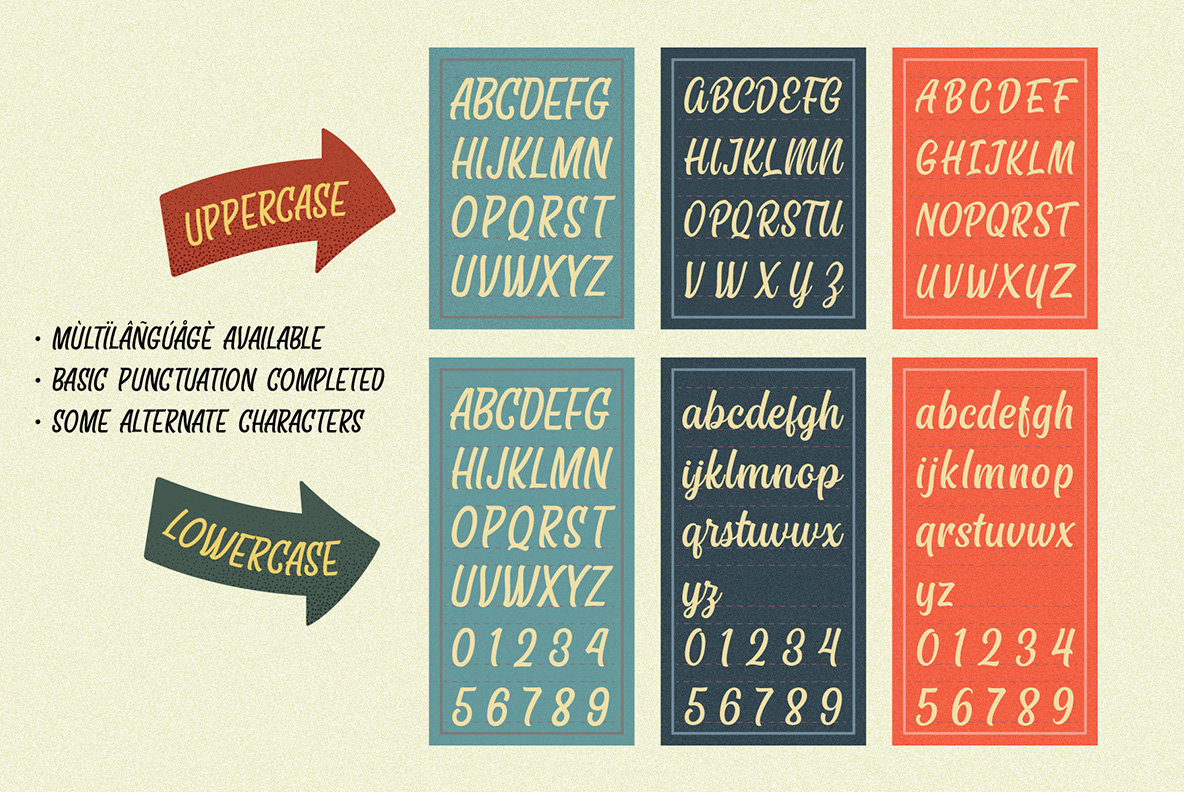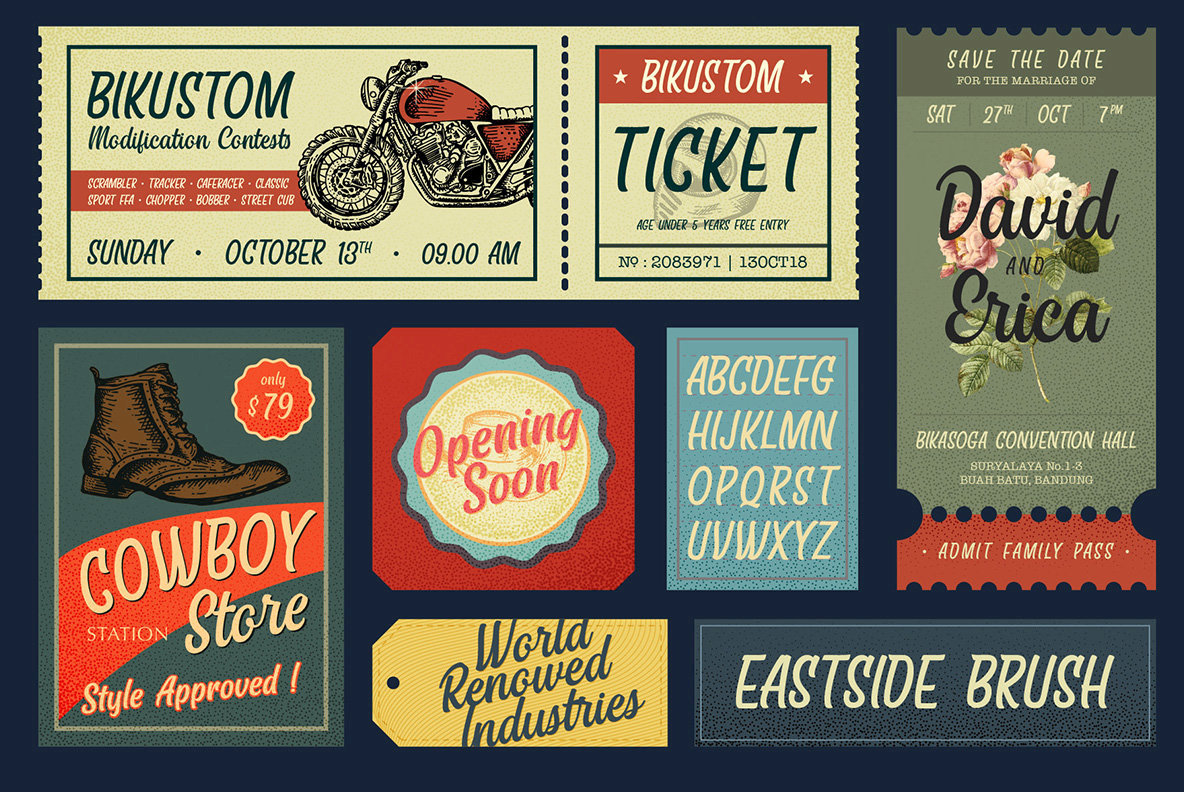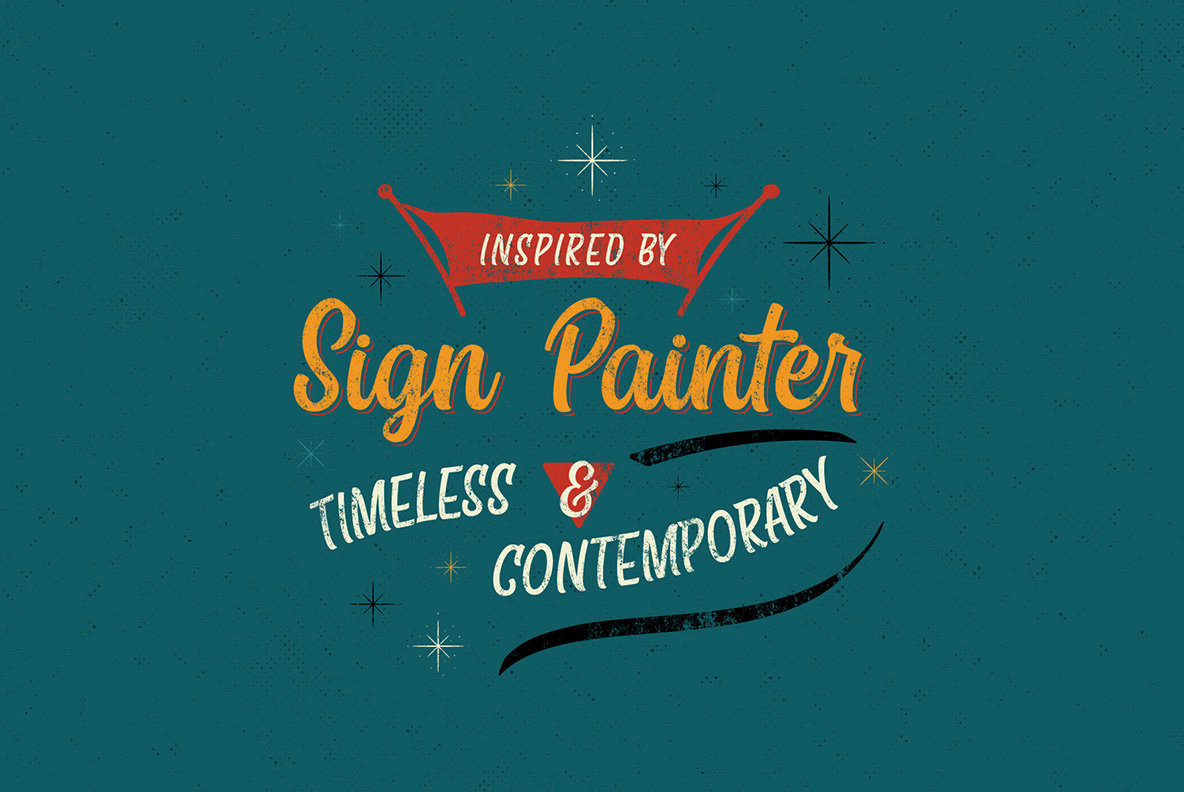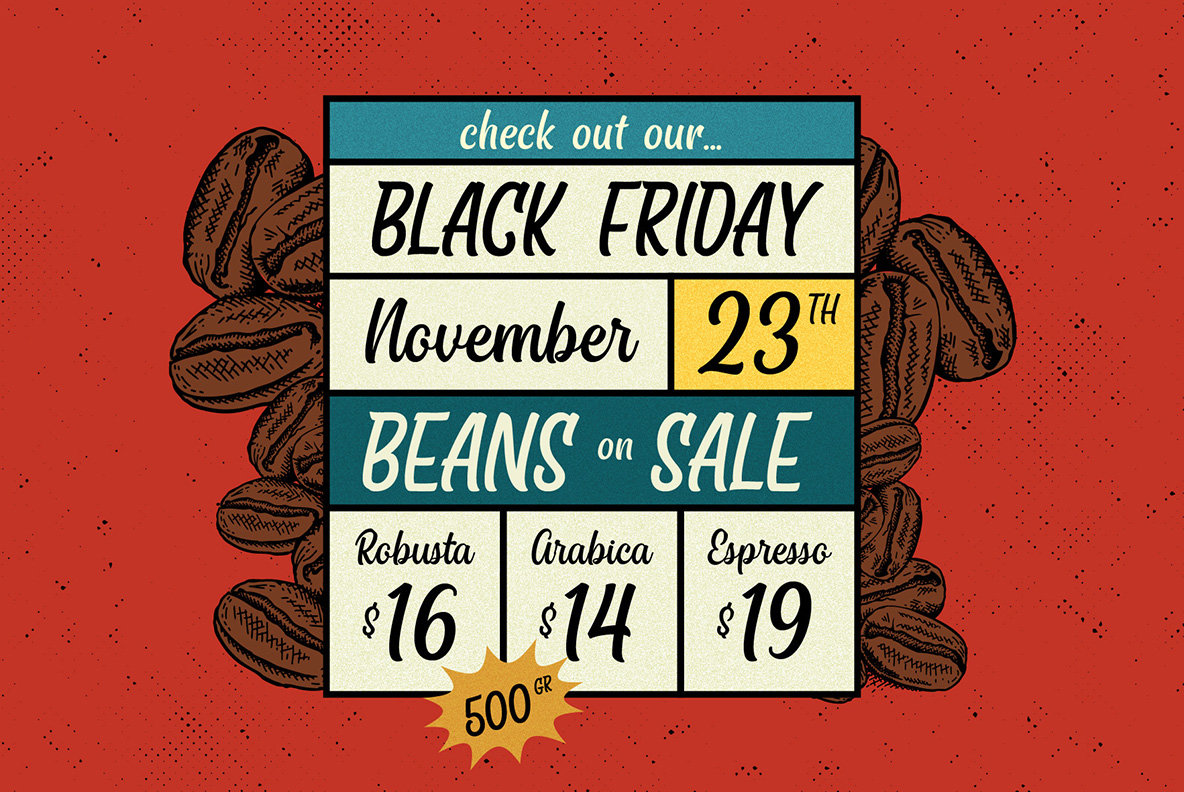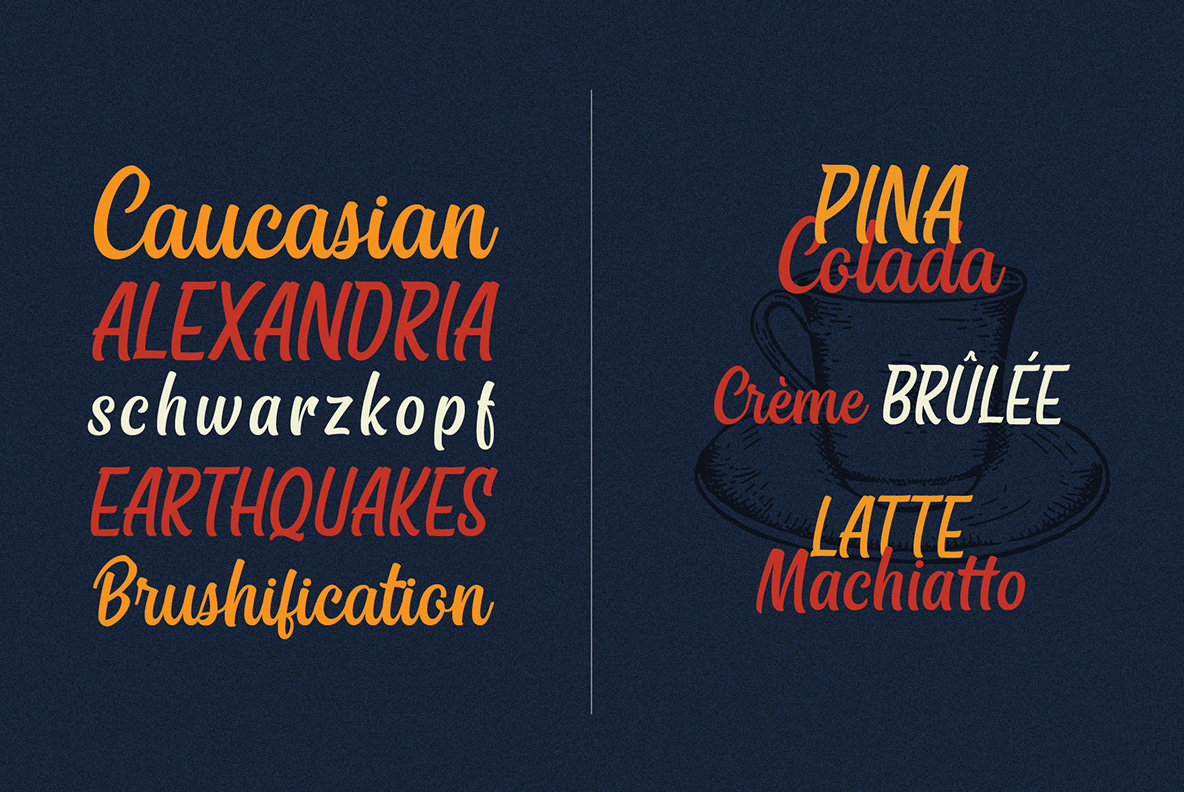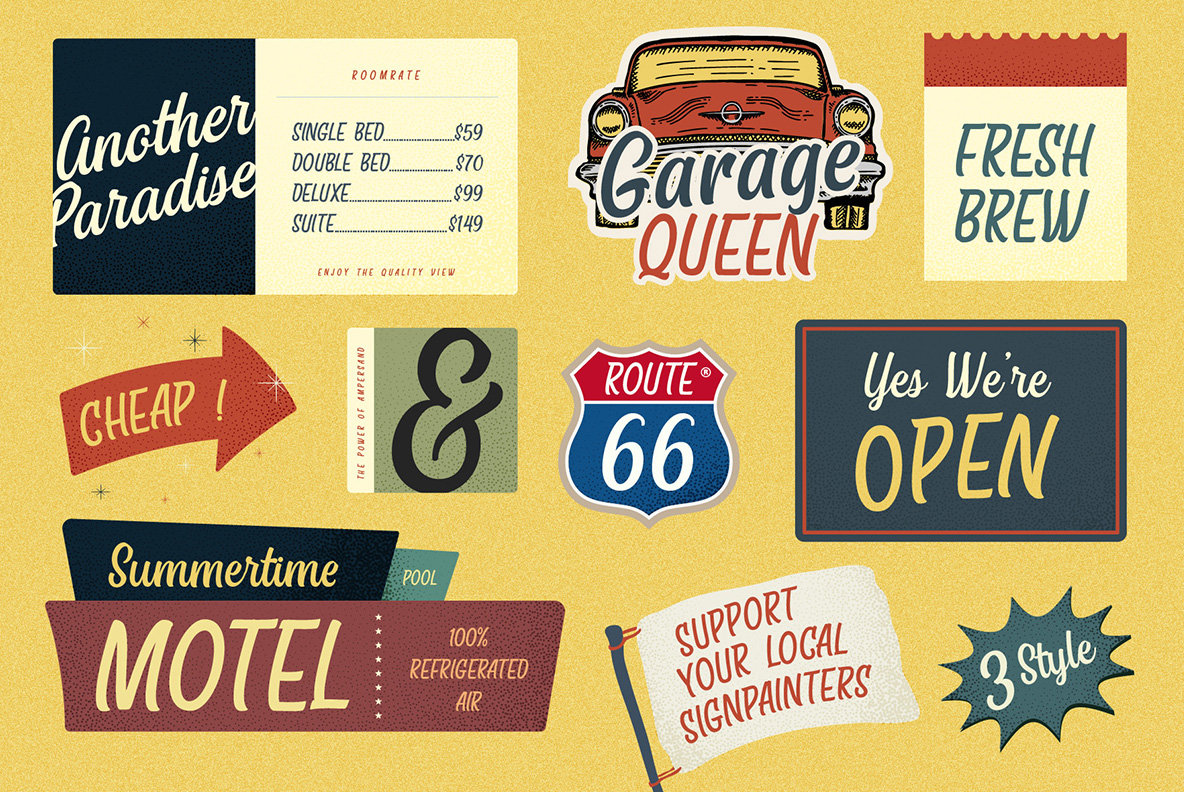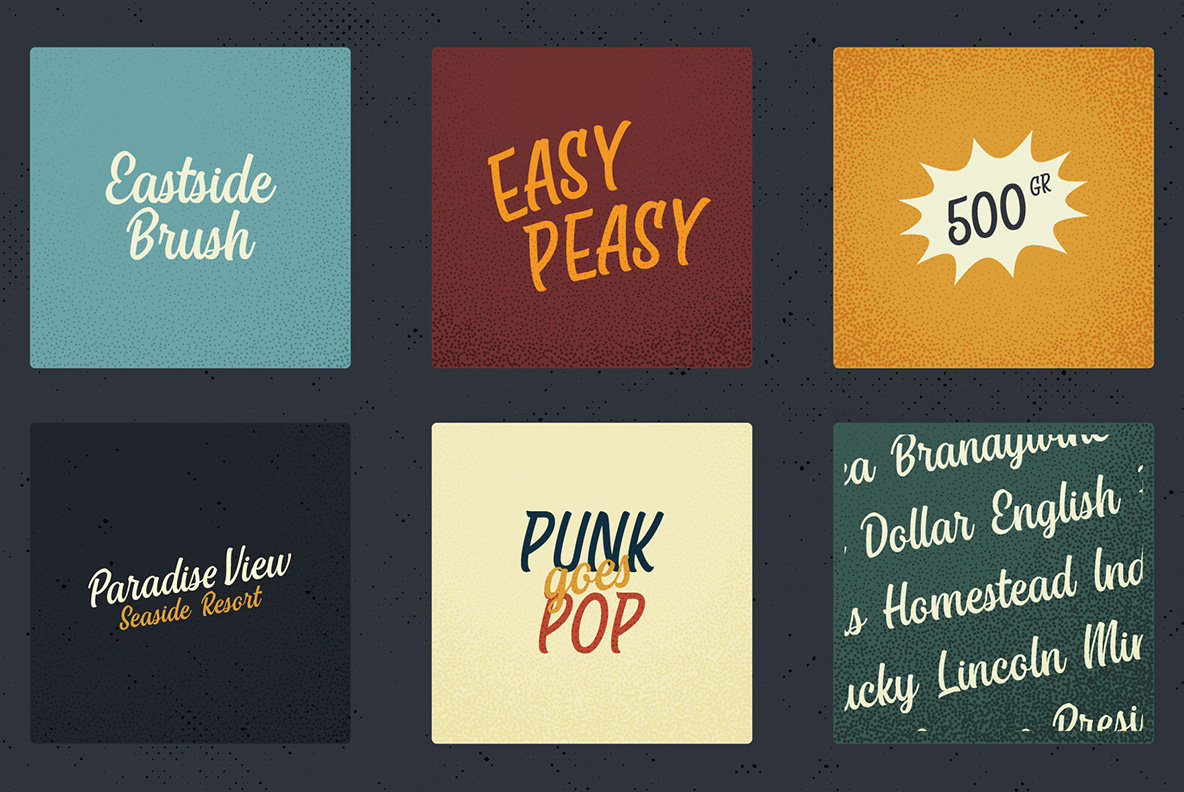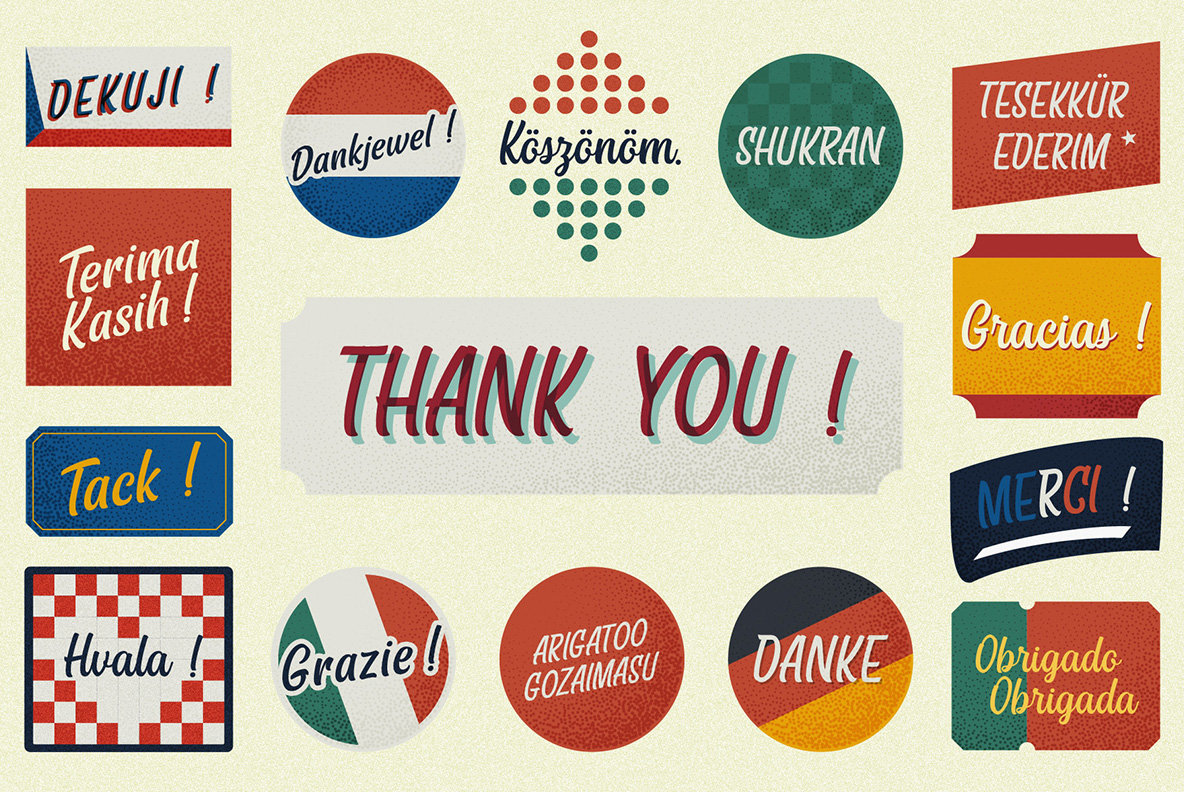
Eastside Brush Font
EastSide Brush Capital
EastSide Brush Cursive
EastSide Brush Script
Eastside Brush captures the essence of classic signage with a contemporary twist. This font trio, rooted in the rich tradition of sign painting, offers creatives a diverse palette to craft captivating visuals. With its blend of script, cursive, and capital styles, Eastside Brush provides a versatile toolkit for modern design scenarios.Eastside Brush: Elegant Hand-Painted Font Trio